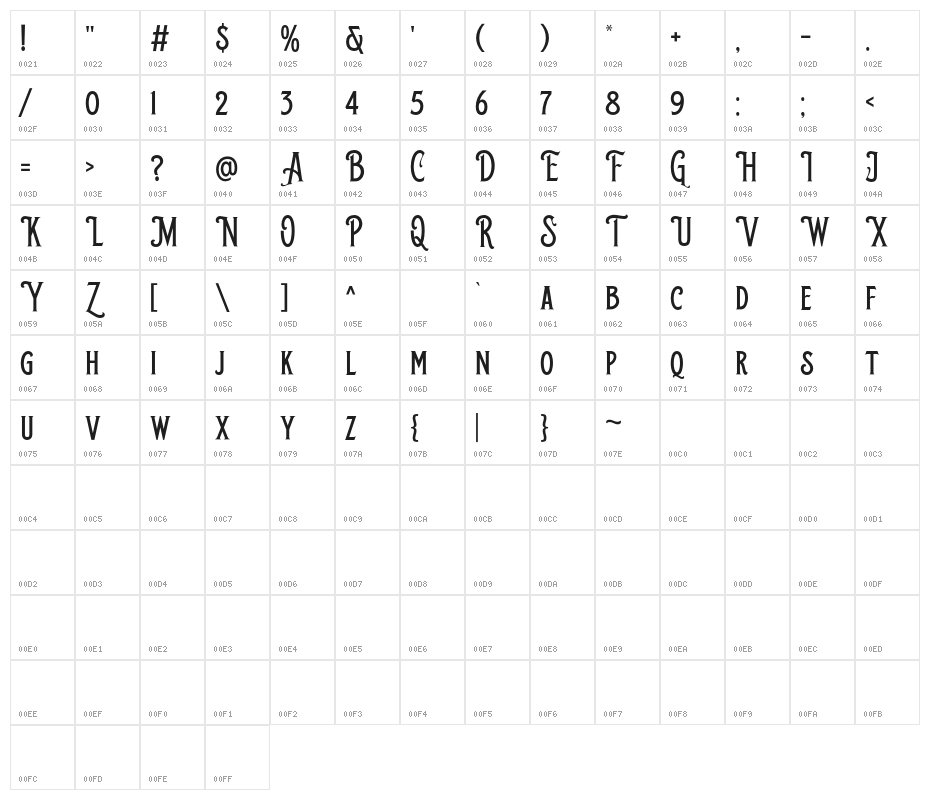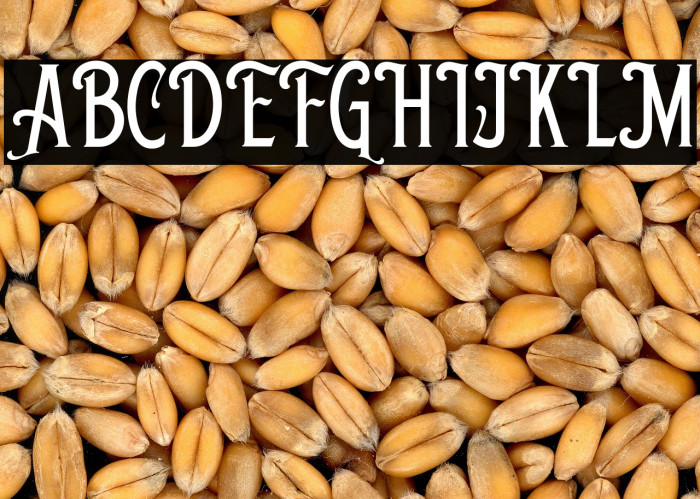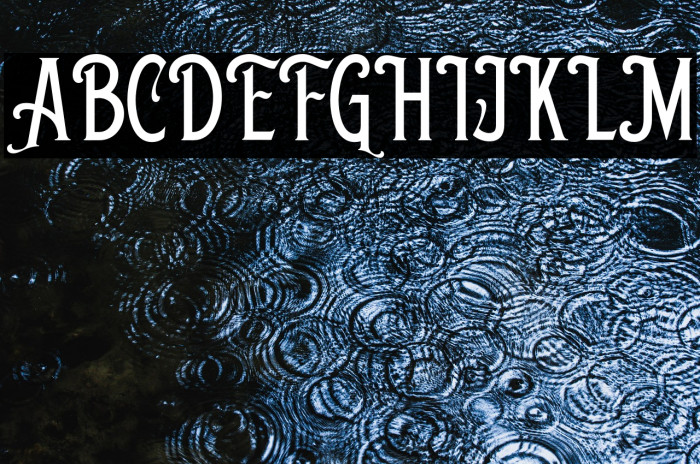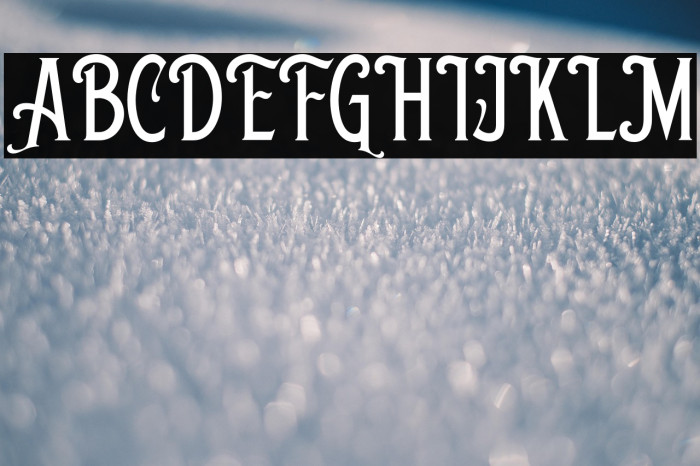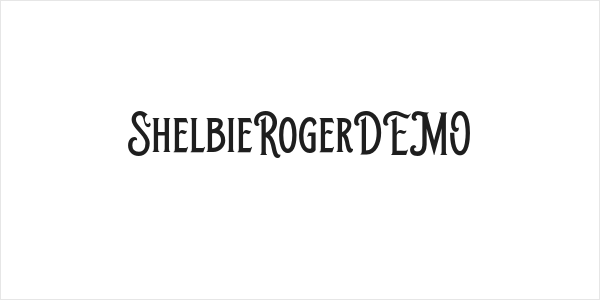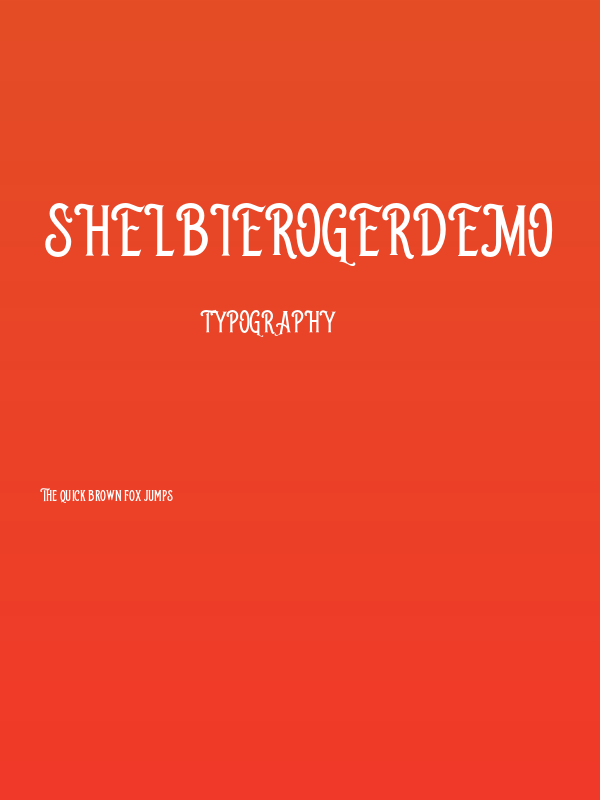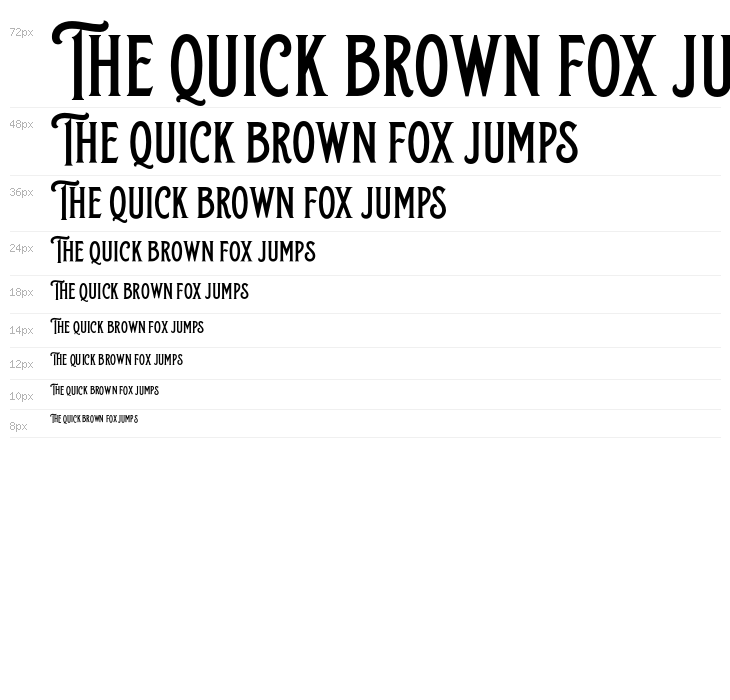
ShelbieRogerDEMO Font
ShelbieRogerDEMO Description
This font features a unique blend of classic and modern elements, characterized by its decorative and slightly whimsical style. The uppercase letters have a distinct flair with curved and pointed serifs, giving them an elegant yet playful appearance. The lowercase letters maintain a consistent style, complementing the uppercase with their own subtle curves and embellishments. The numerals are bold and clear, ensuring readability while maintaining the font's decorative nature. Special characters are designed with the same attention to detail, making them suitable for a variety of creative applications. Overall, this font exudes a sense of sophistication and creativity, making it ideal for projects that require a touch of elegance and uniqueness.